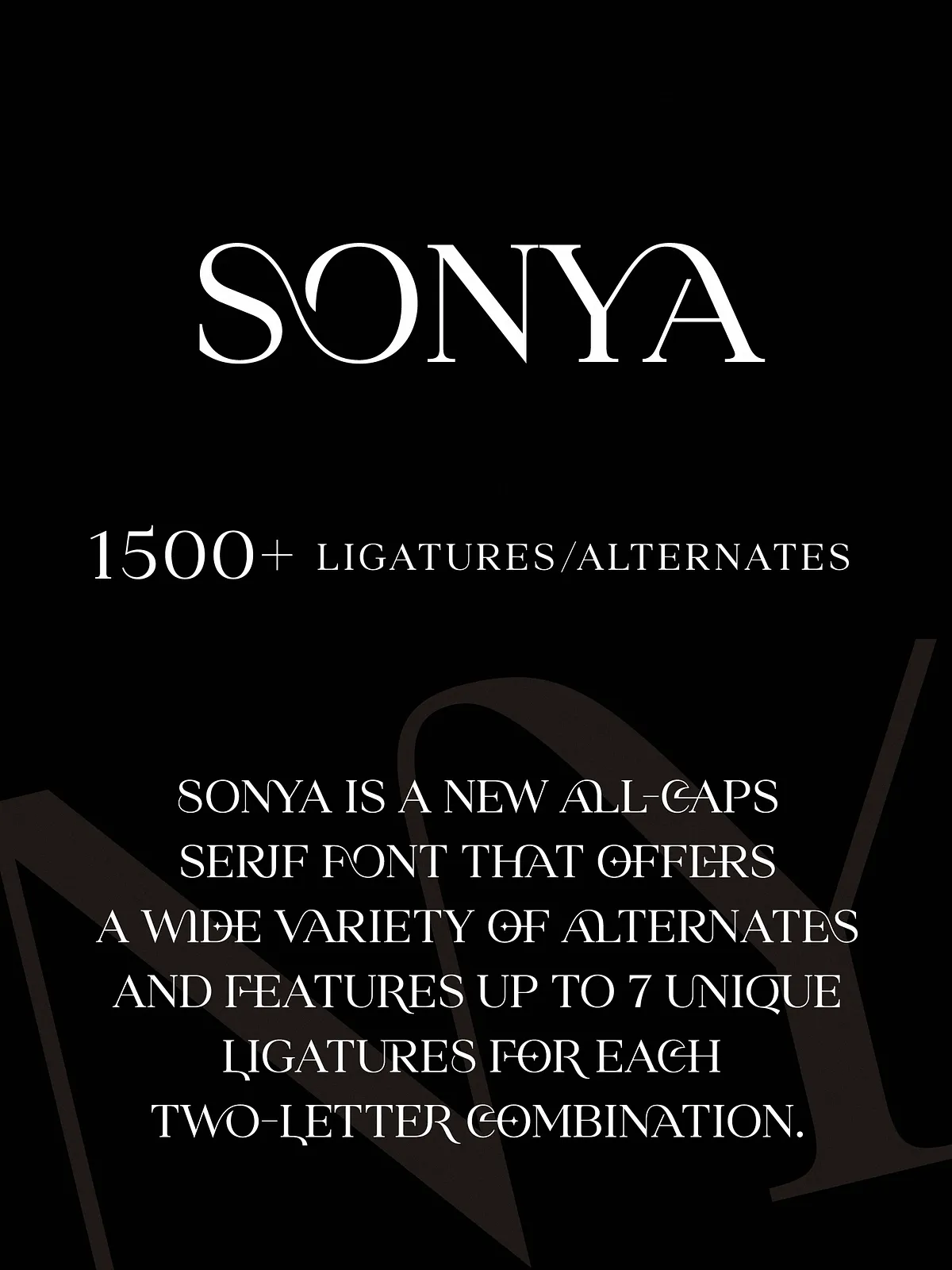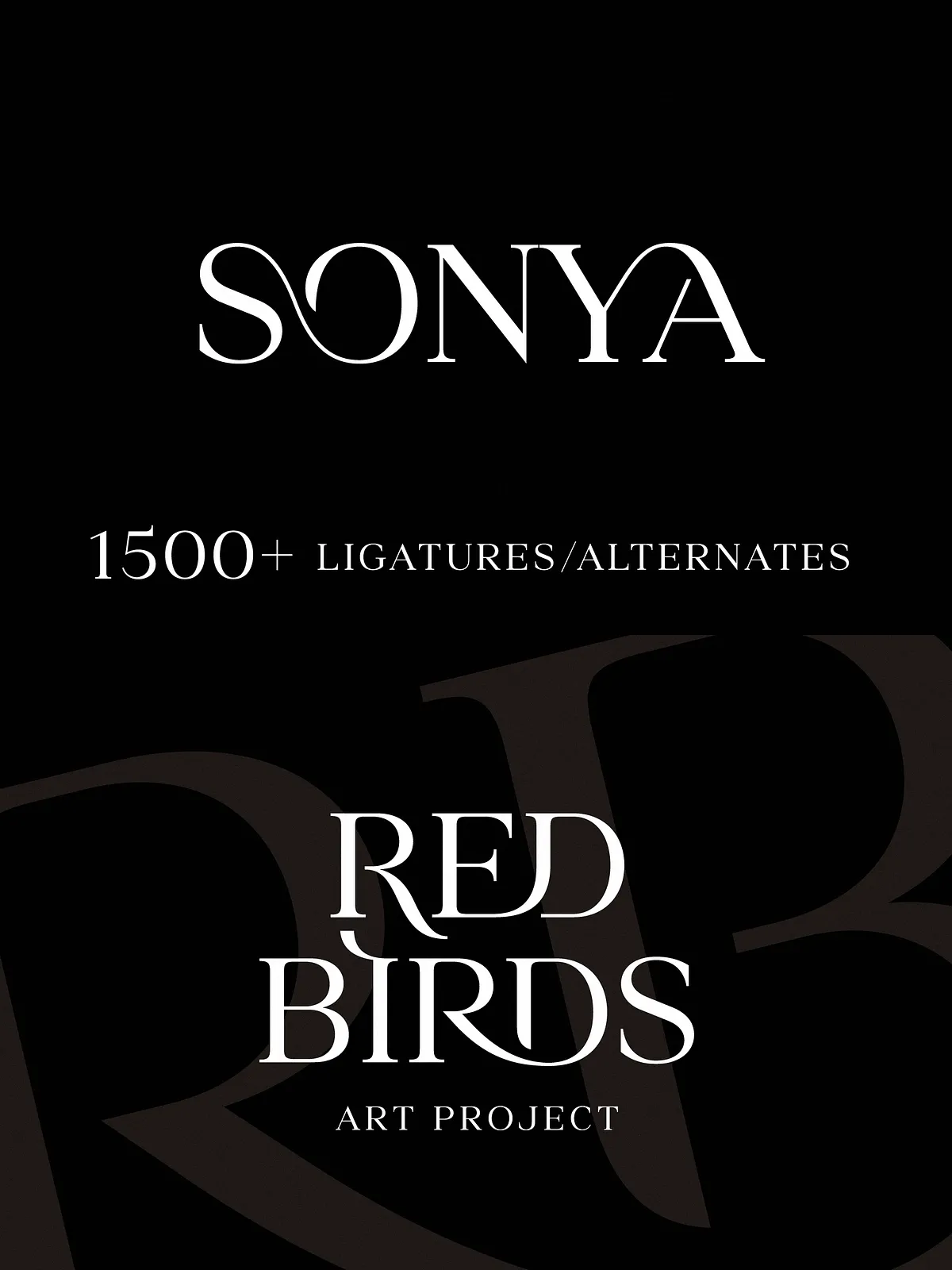
Sonya – Ligatures Serif Font
Sonya is a new all-caps serif font that offers a wide variety of alternates and features up to 7 unique ligatures for each two-letter combination.
The font contains:
Latin uppercase letters and up to 3 alternates per letter
Basic multilingual uppercase letters
Up to 7 ligature per each two-letter combination
Numbers
Extra characters
Punctuation